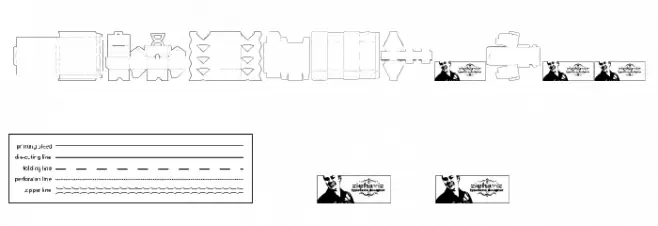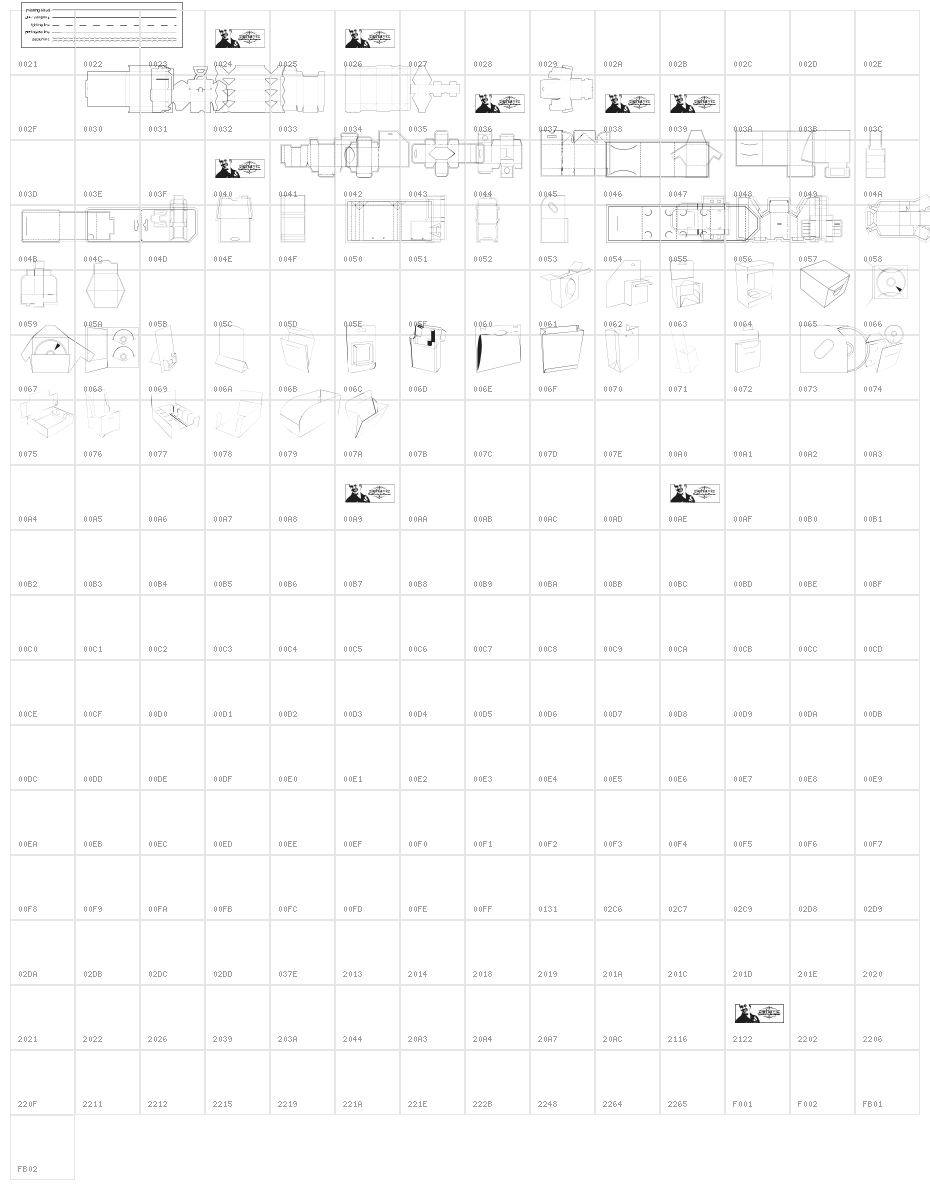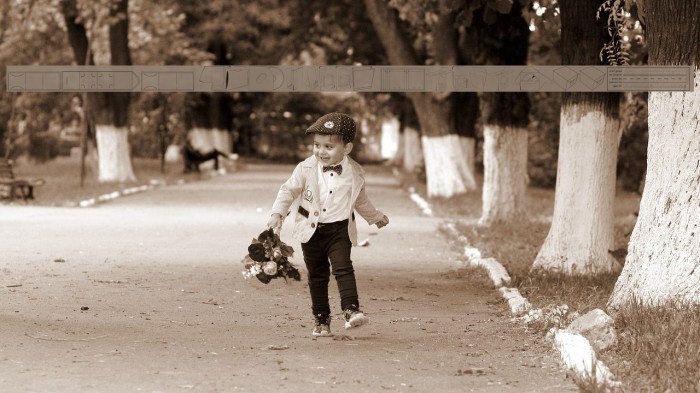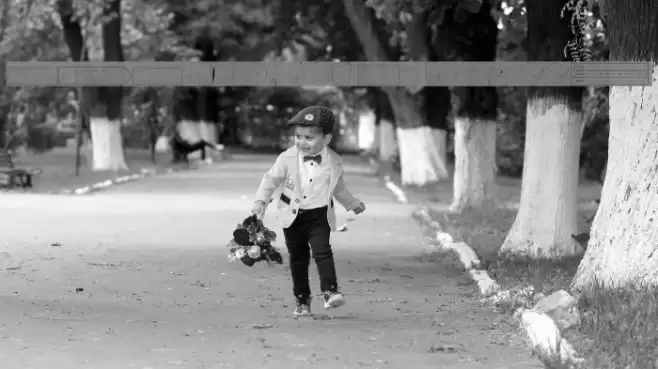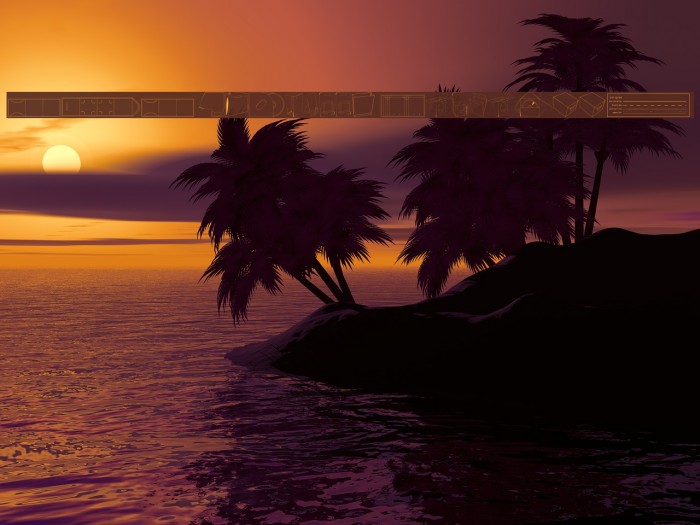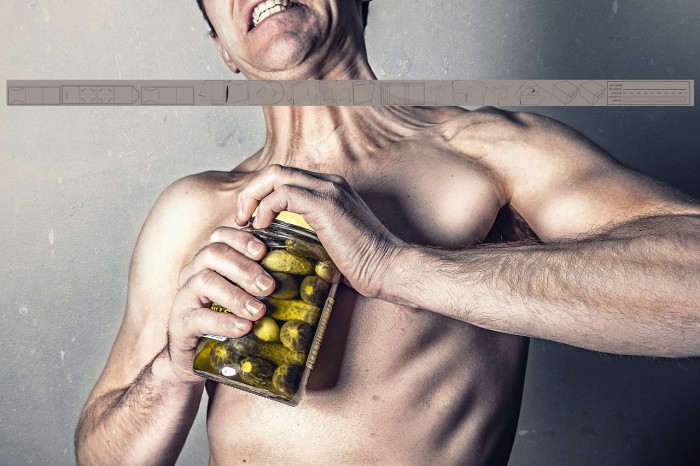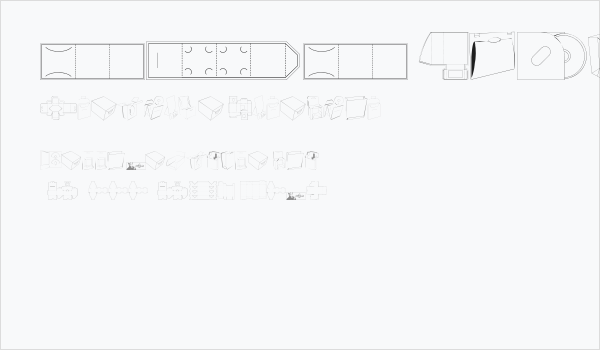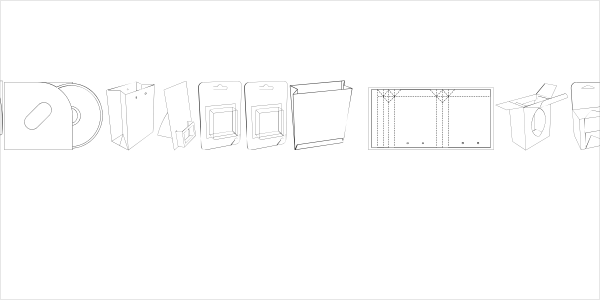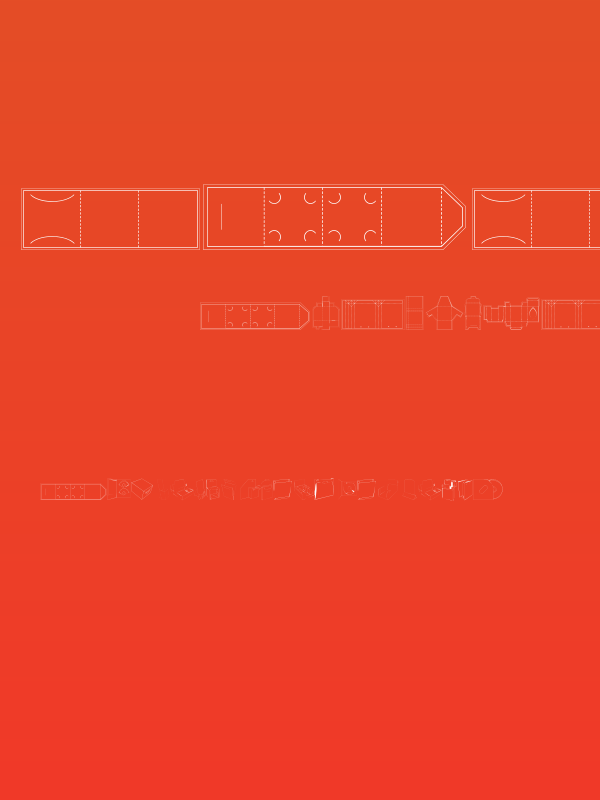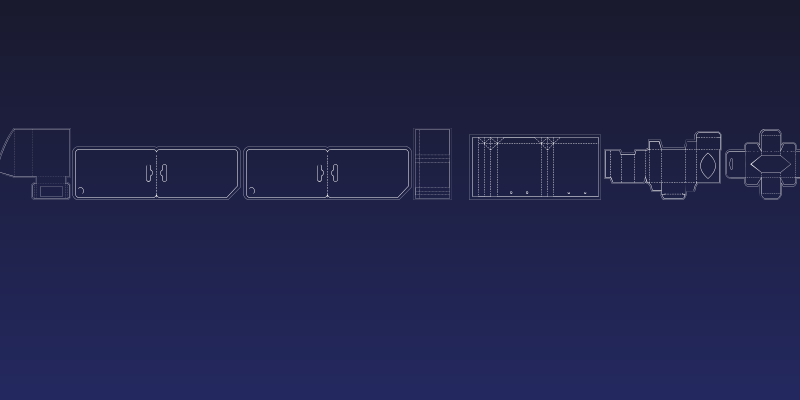
FTF Inspillo Packagee!" Font
FTF Inspillo Packagee!" Description
This is not a traditional font but a collection of packaging dieline templates, each representing different box and package shapes with technical drawing lines and folding instructions.
| Overall Style | Technical, Decorative |
| Use Case | Packaging templates, design guides, educational materials. |
| Proposed Projects | Packaging design, box prototyping, product mockups, instructional materials. |